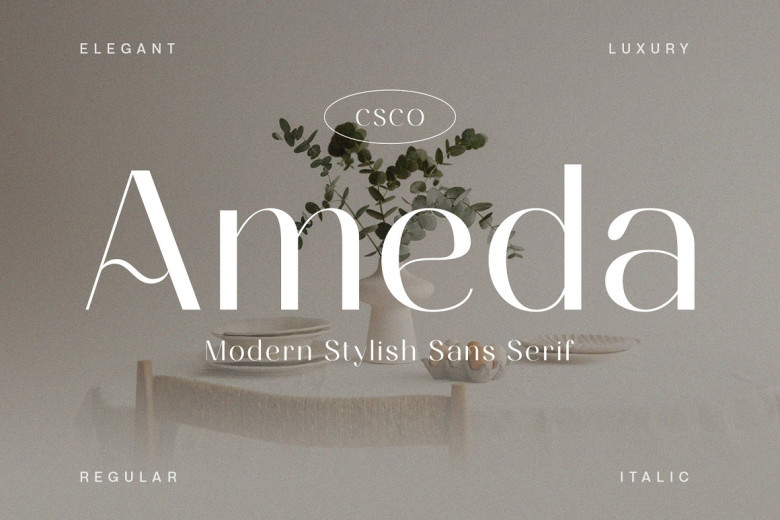
Ameda Font
Ameda – An elegant sans-serif font featuring high contrast and modern aesthetic. Ameda will add sophistication and flair to your design project.
This versatile font can be used for various projects such as greeting cards, packaging designs, branding efforts, posters and poster designs. Get creative! Take this font for a spin!
Ameda Sans Serif Font